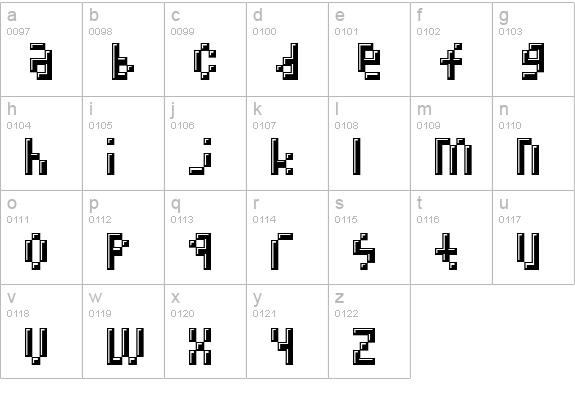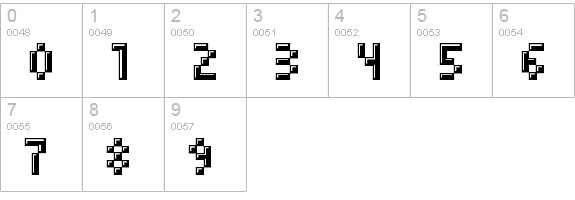
MEGZ Font Details
Introducing MEGZ font, a sleek and modern typeface that exudes elegance and sophistication. With its clean lines and contemporary design, MEGZ is perfect for a wide range of projects, from branding to editorial design. This versatile font is sure to elevate any design with its stylish and professional look. What's even better is that MEGZ font is completely free to download at FontsMarket.com! Now you can access this premium font without breaking the bank. Whether you're a designer looking to add a new font to your collection or a business owner in need of a fresh look for your branding, MEGZ font is the perfect choice. Don't miss out on this fantastic opportunity to enhance your projects with the stunning MEGZ font, available for free download now at FontsMarket.com.